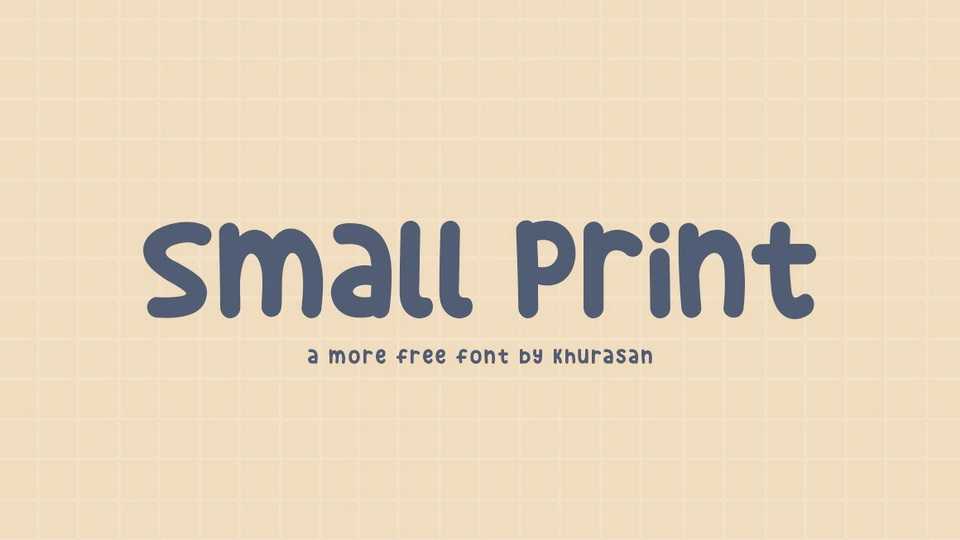
Download Small Print font, a simple and cute handwritten typeface. Small Print is perfect for posters, logos, magazines, book covers, banners, and many more.